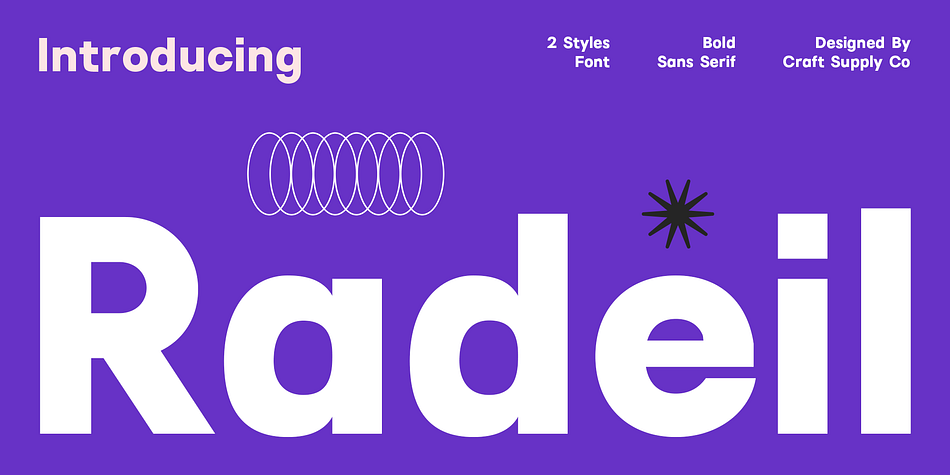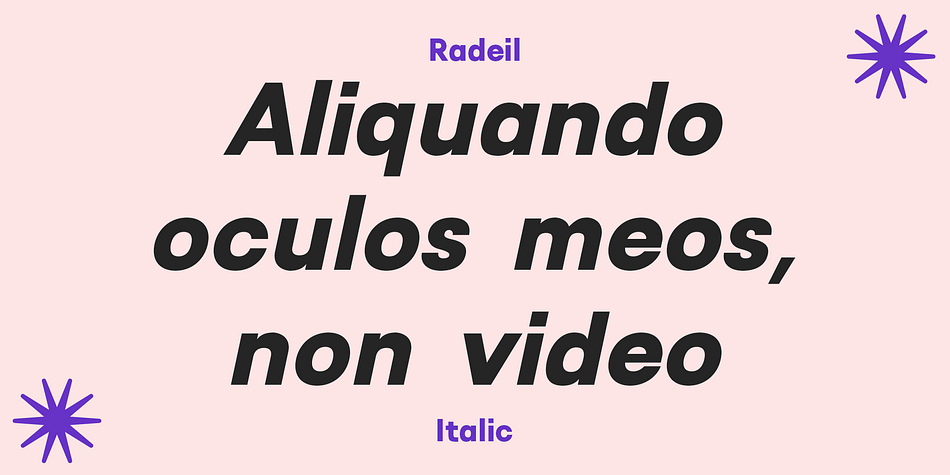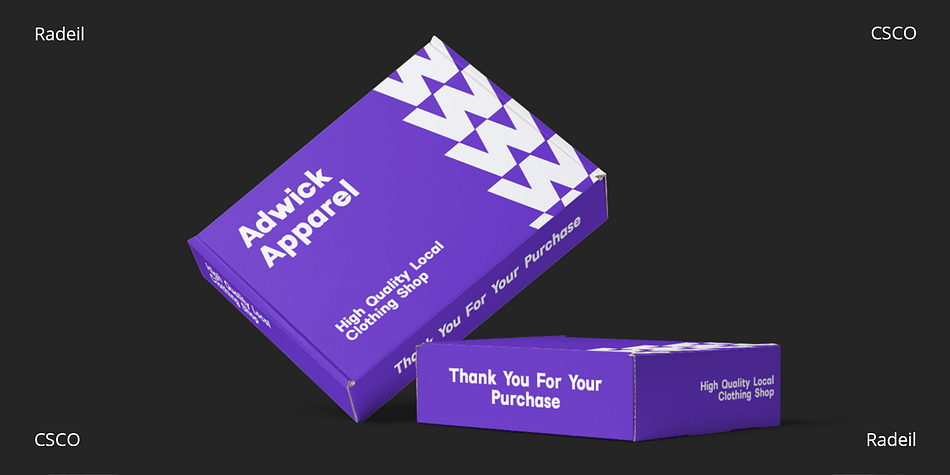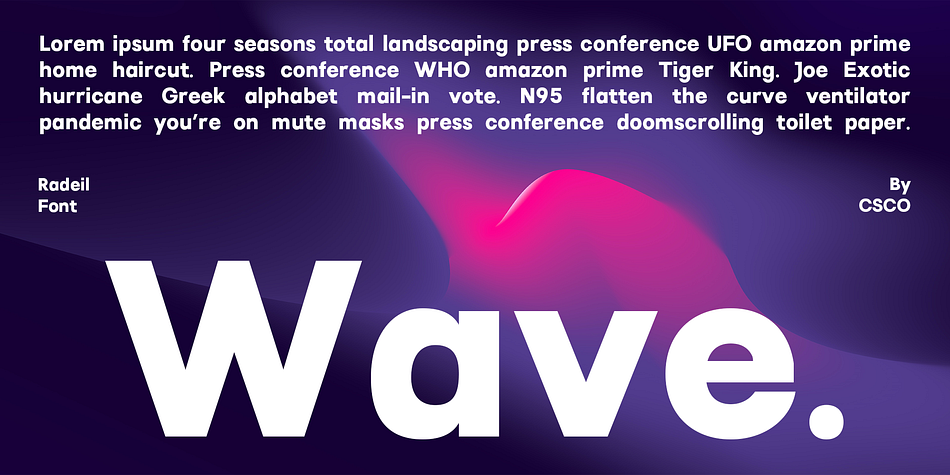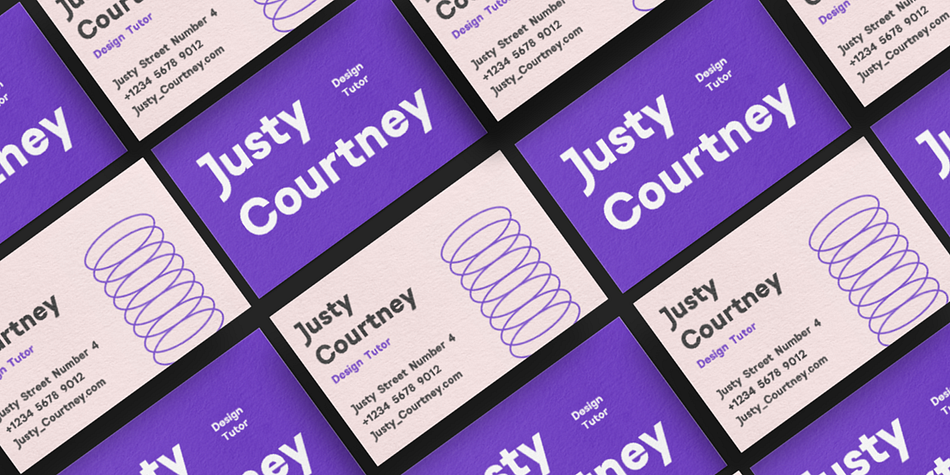
Radeil
Radeil is a sans serif font family. This typeface has two styles and was published by Craft Supply Co.
Introduction to Radeil – Geometric Sans Serif
Radeil, a geometric sans serif font, embodies modern elegance. It offers a clean and minimalist appeal. This font is perfect for diverse applications. Its design is rooted in simplicity and clarity.
Design Features
Radeil boasts smooth, clean lines, characteristic of geometric fonts. It has uniform stroke widths, ensuring visual consistency. The font’s letterforms are simple yet sophisticated. This design choice makes it highly legible.
Modern Aesthetics
Radeil excels in modern aesthetics. It integrates well with contemporary designs. Its minimalist nature suits various creative projects. The font is ideal for branding, web design, and print media.
Versatility and Usability
Remarkably versatile, Radeil adapts to multiple contexts. It is equally effective in large headings and body text. The font supports a wide range of languages. This feature broadens its usability across different regions.